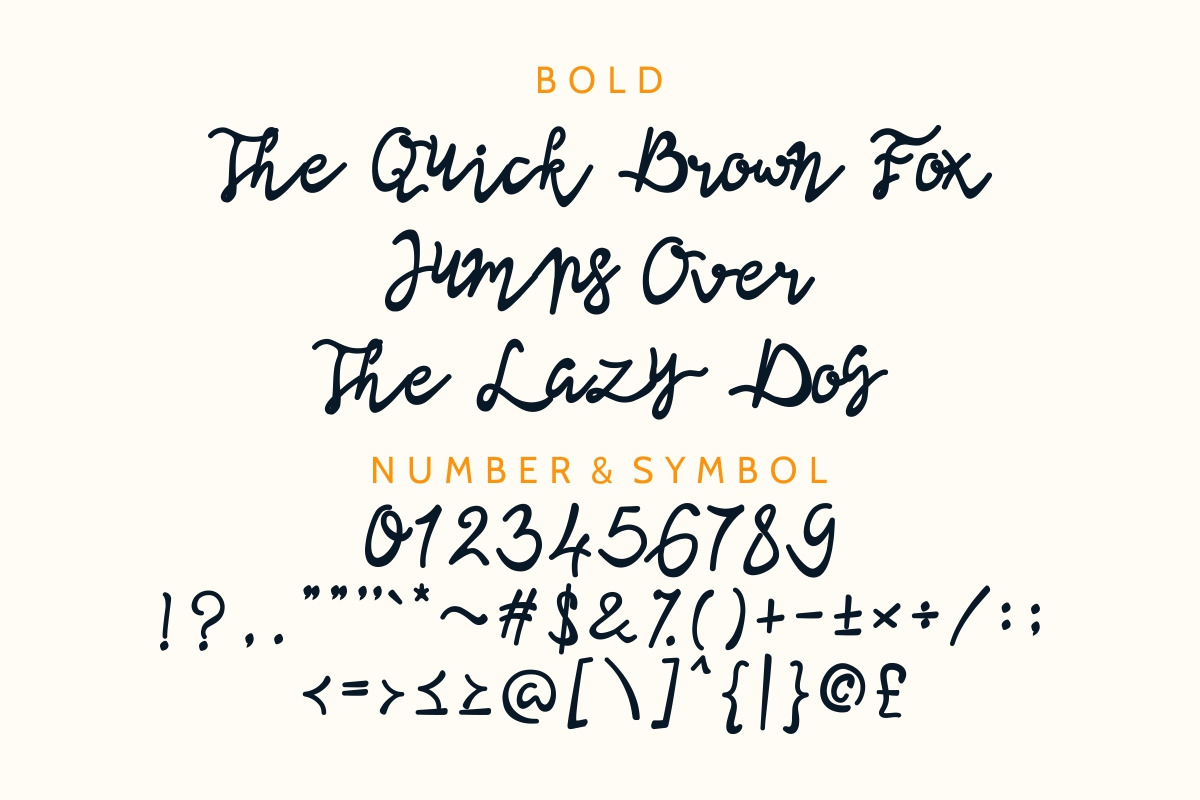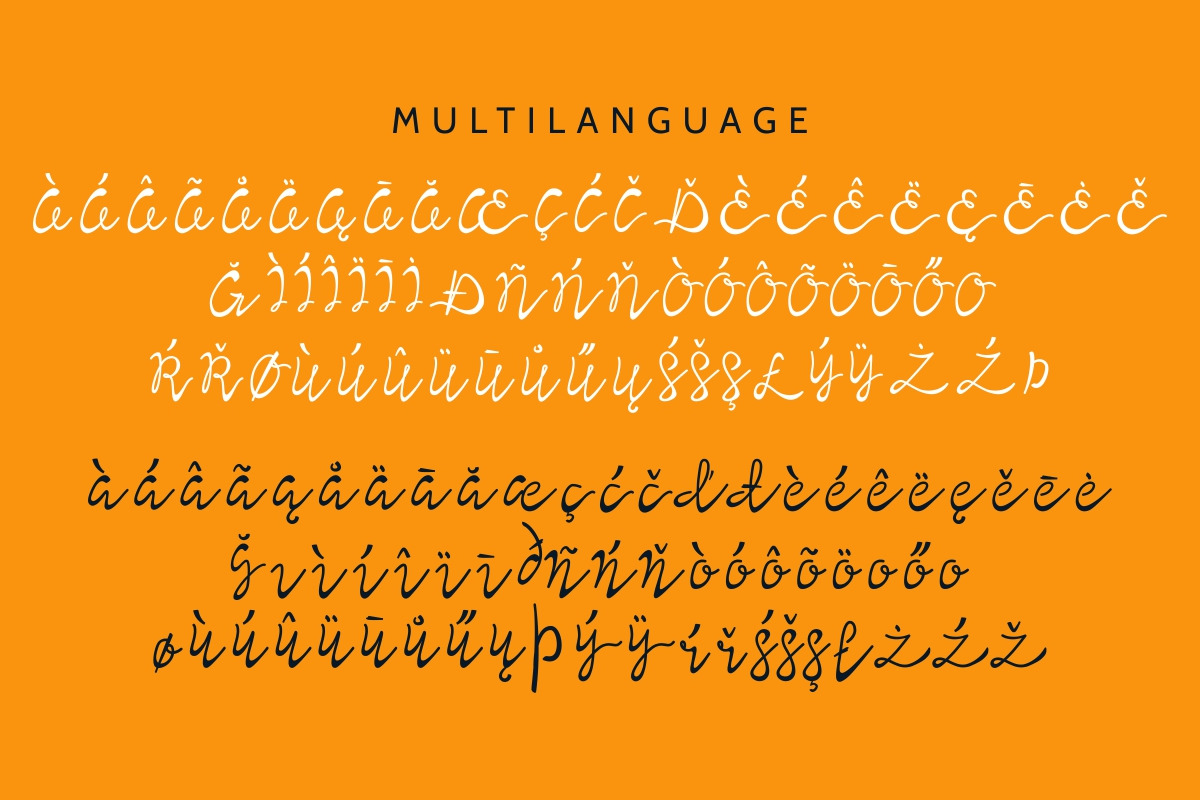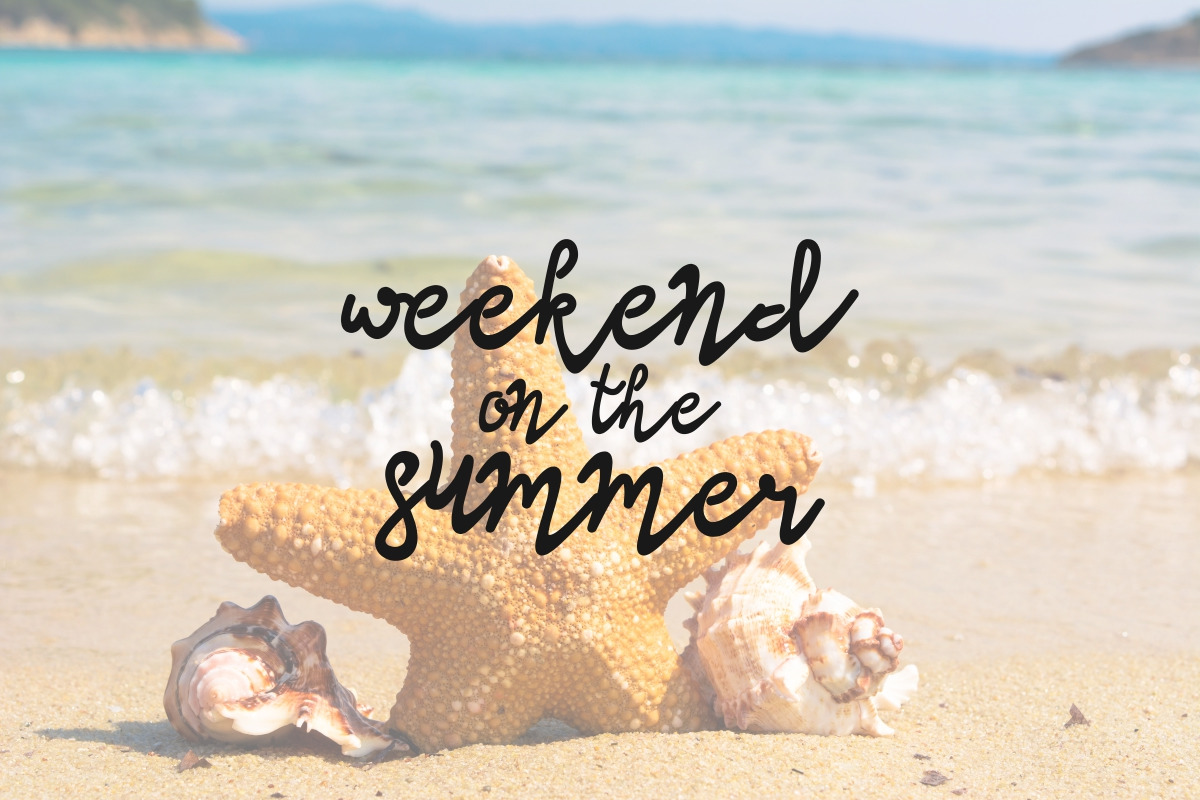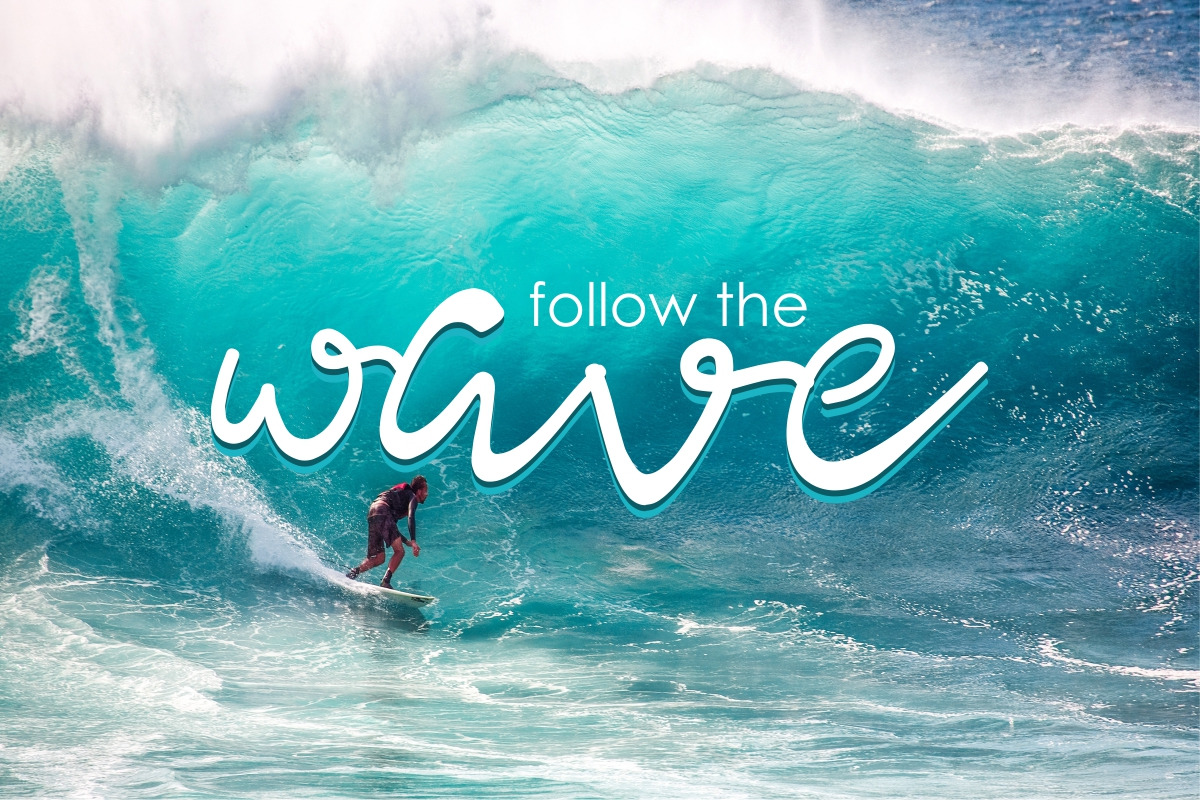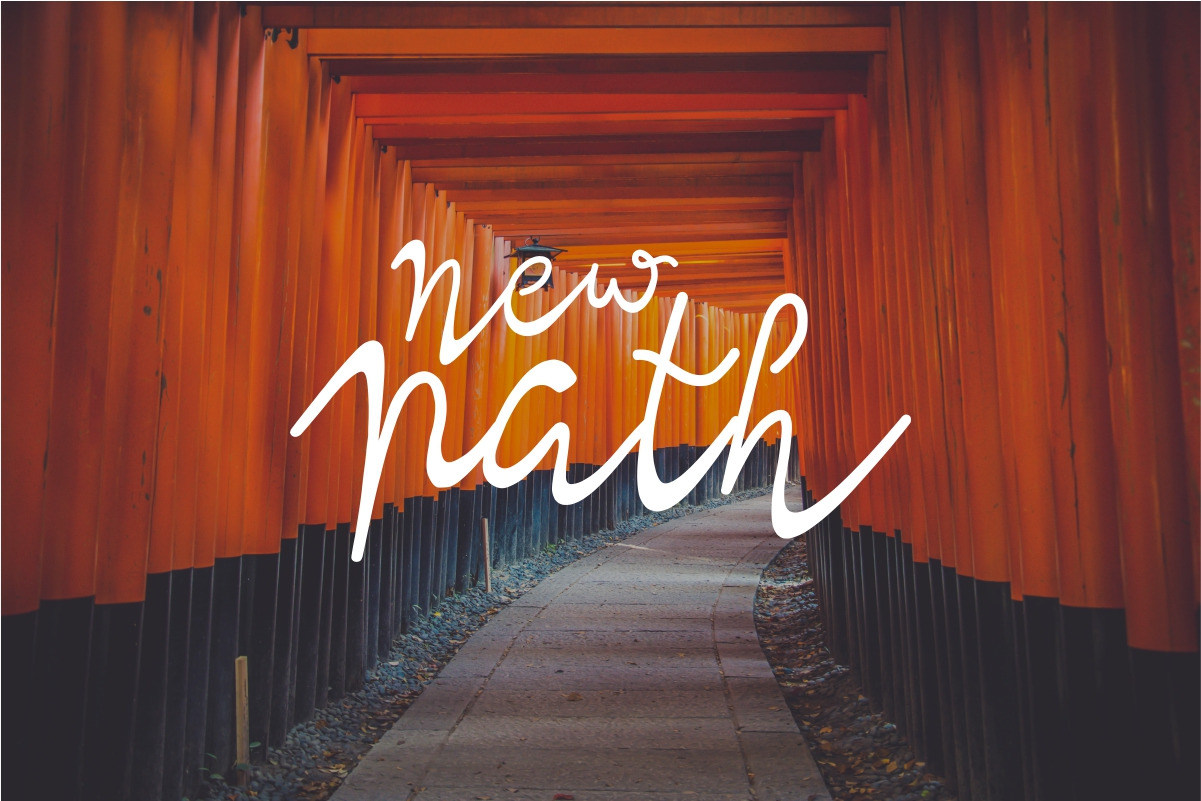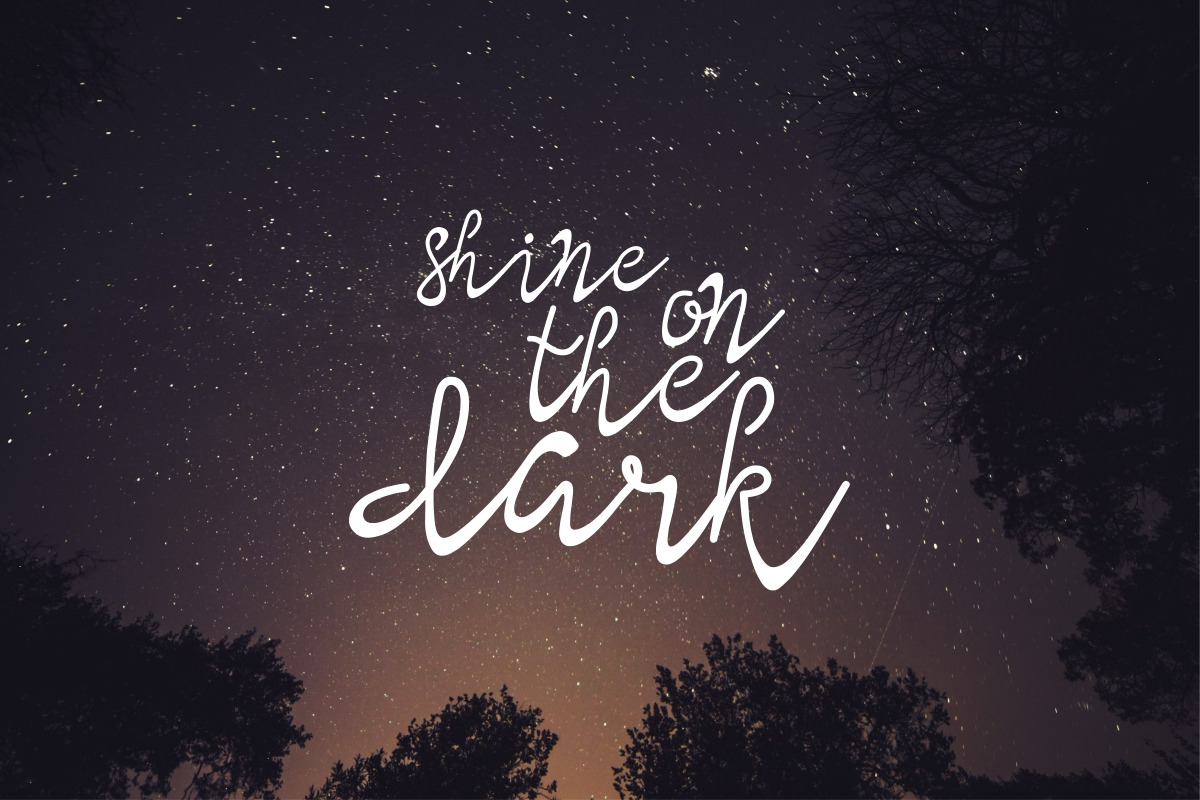
Lisna Calligraphy Font
It’s great to be back! This is our newest font called “LISNA”. This font was made by hand by our only female designer on our typeface team. This come with 2 styles : regular and bold.
It has a special style naturally like a real writing. With a unique width.,this font will be great for many projects : from Headline resume, watermark, flyer, invitation, Product tagline like cosmetic lipstick, makeup artist etc.
Lisna is a sophisticated styling font which will be perfect for branding, logo, photography and signature. It is so elegant, classy, strong and beautiful.